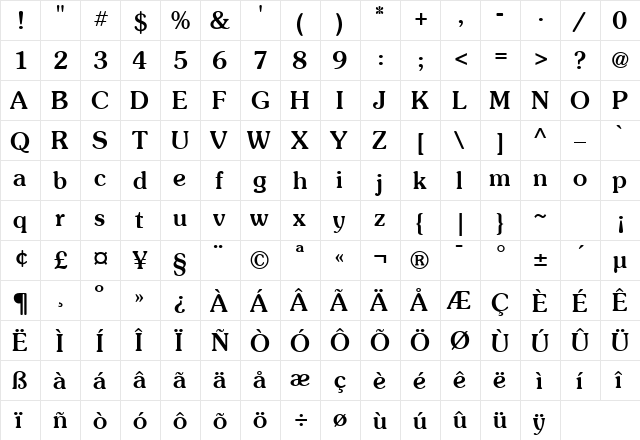
SueVermeer5 MediumSH
Design Context for SueVermeer5 Typeface
SueVermeer5 offers clean, dependable letterforms without strong stylistic allegiance, making it a practical choice for designers who need flexibility.
Pro Tip: Use SueVermeer5 in both headline and body roles to test its range before committing to a single application.